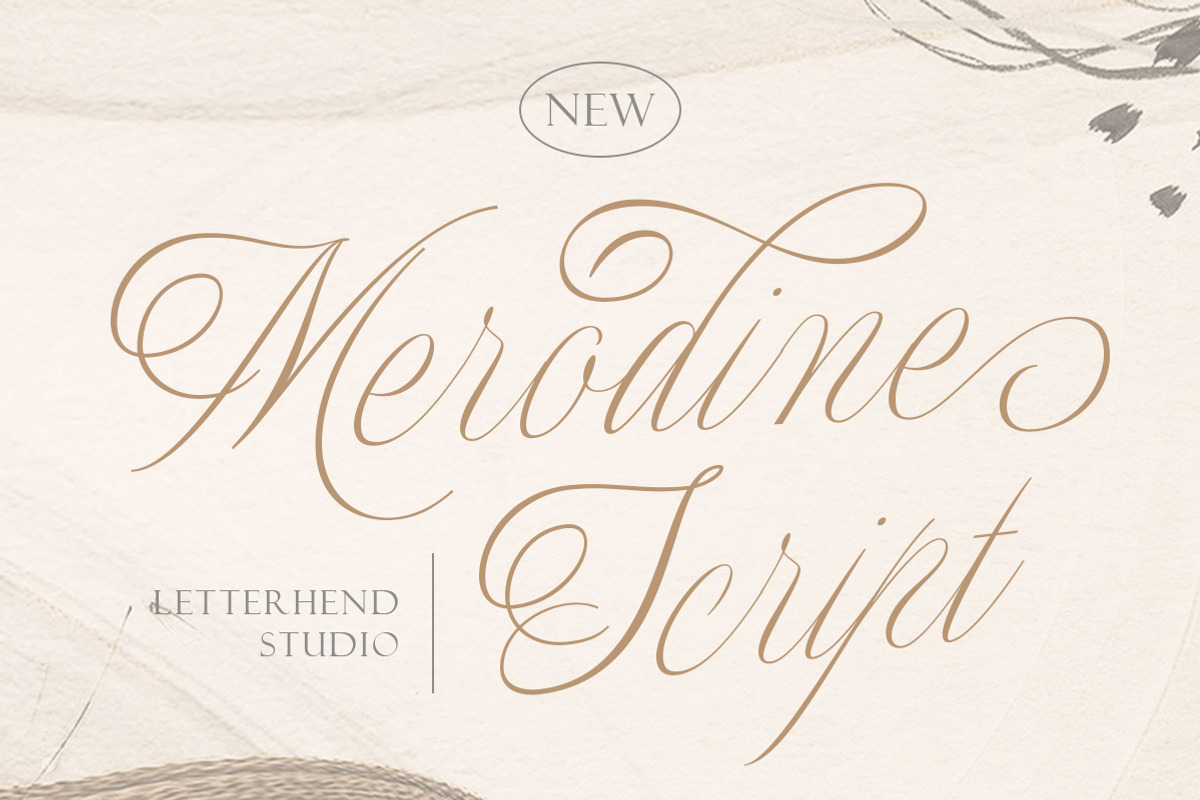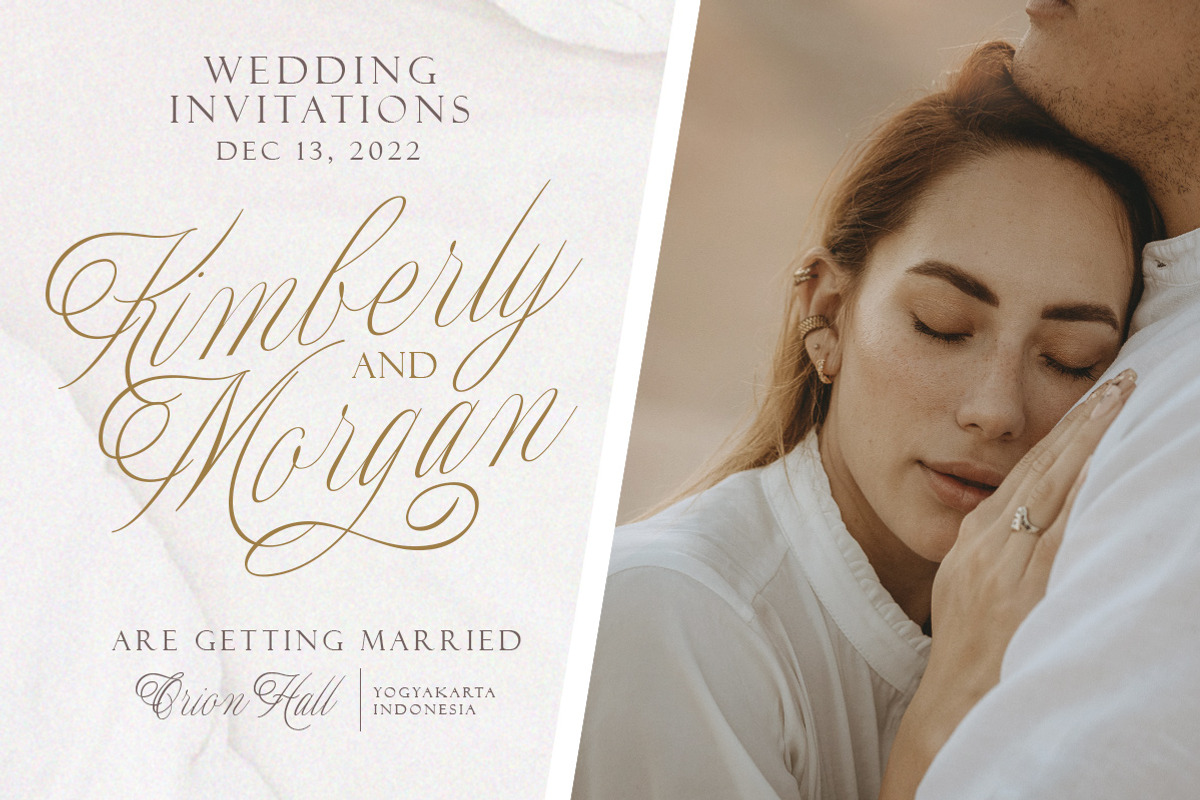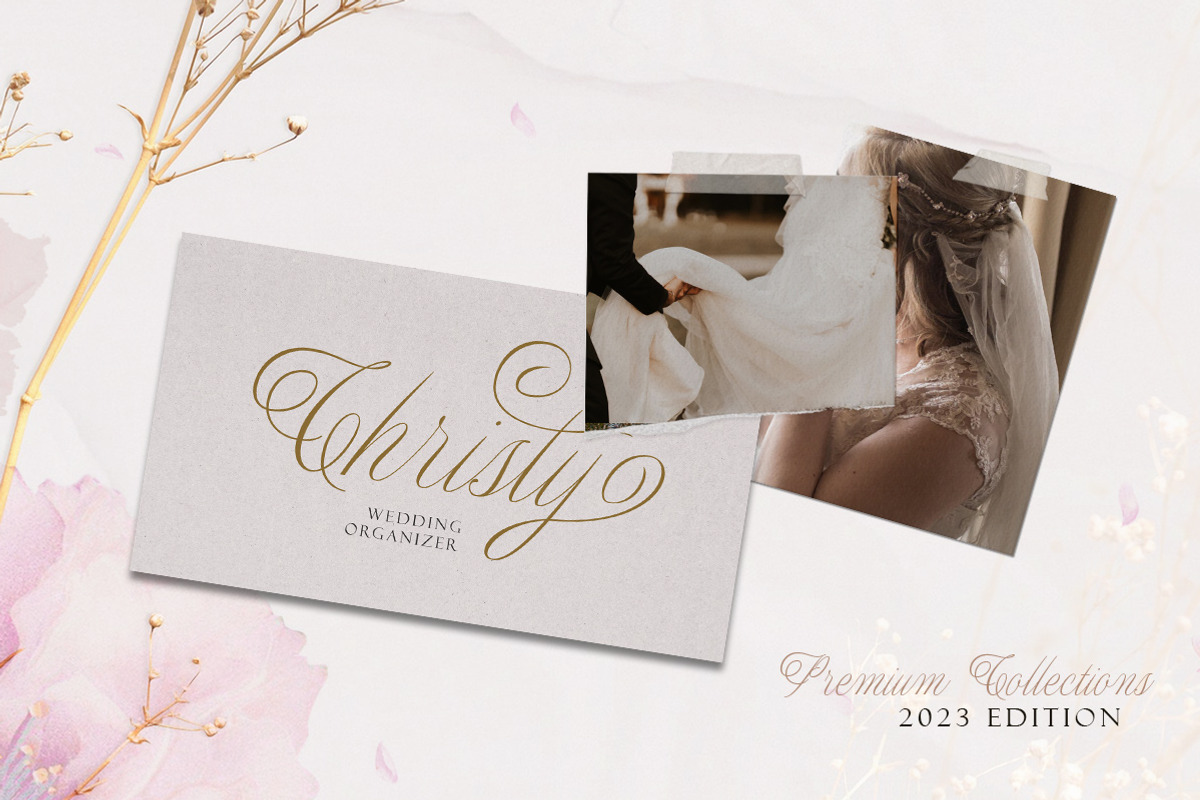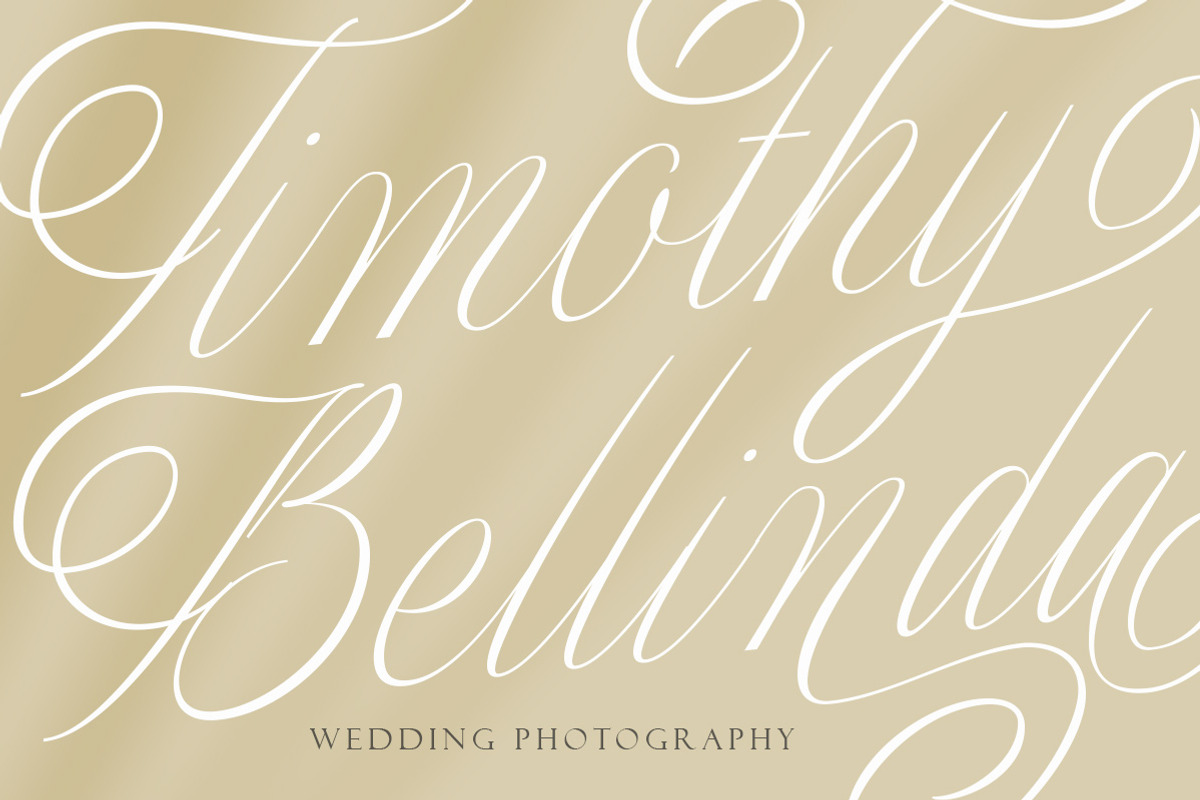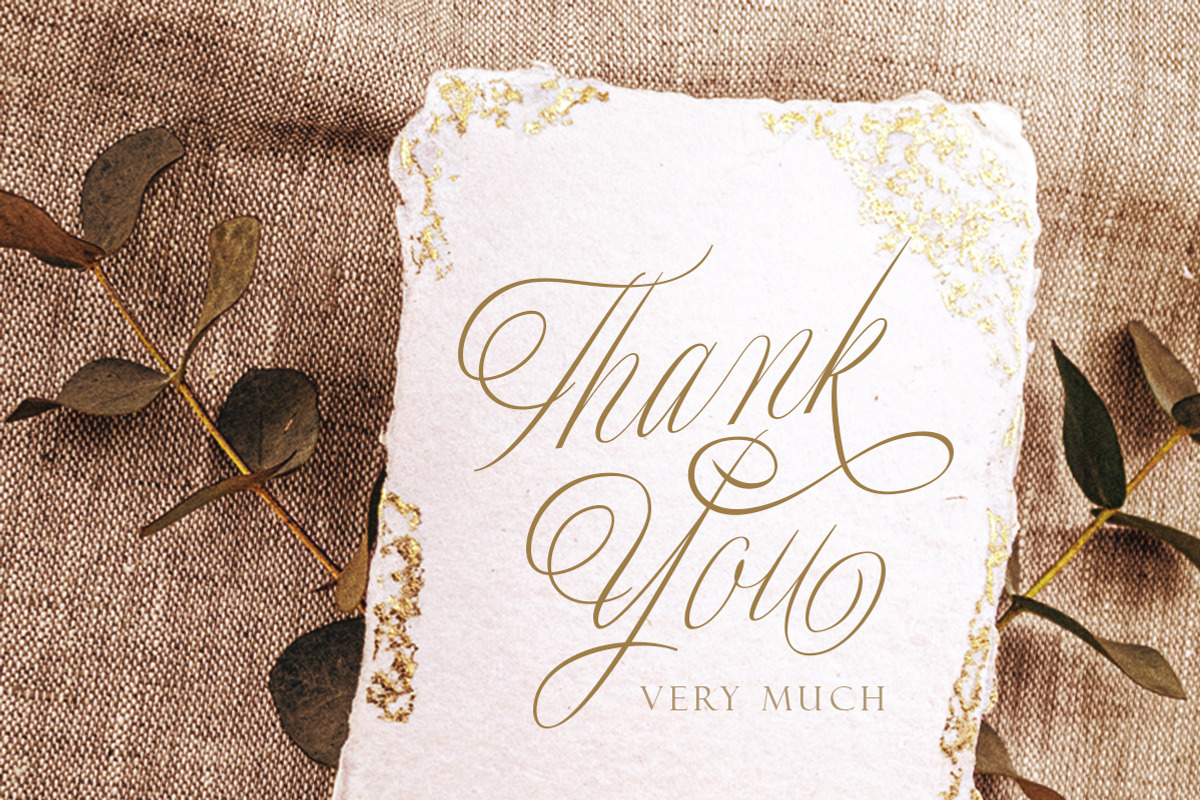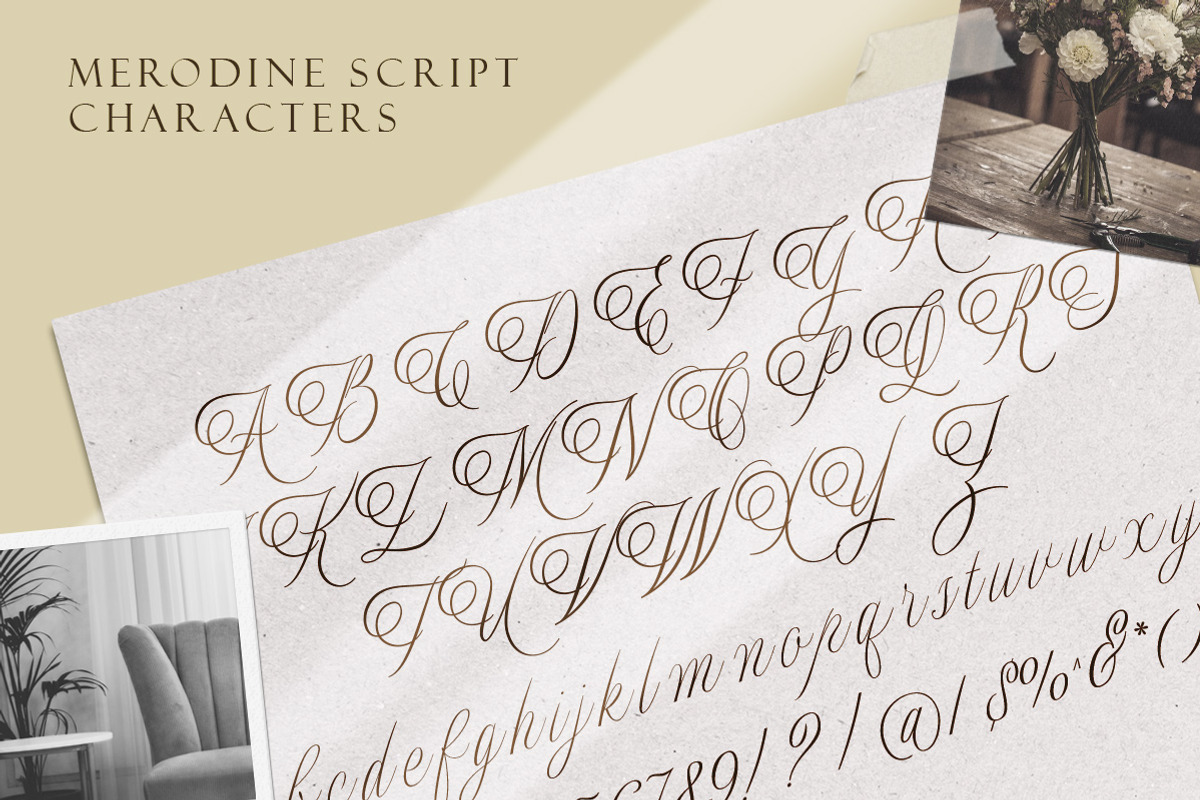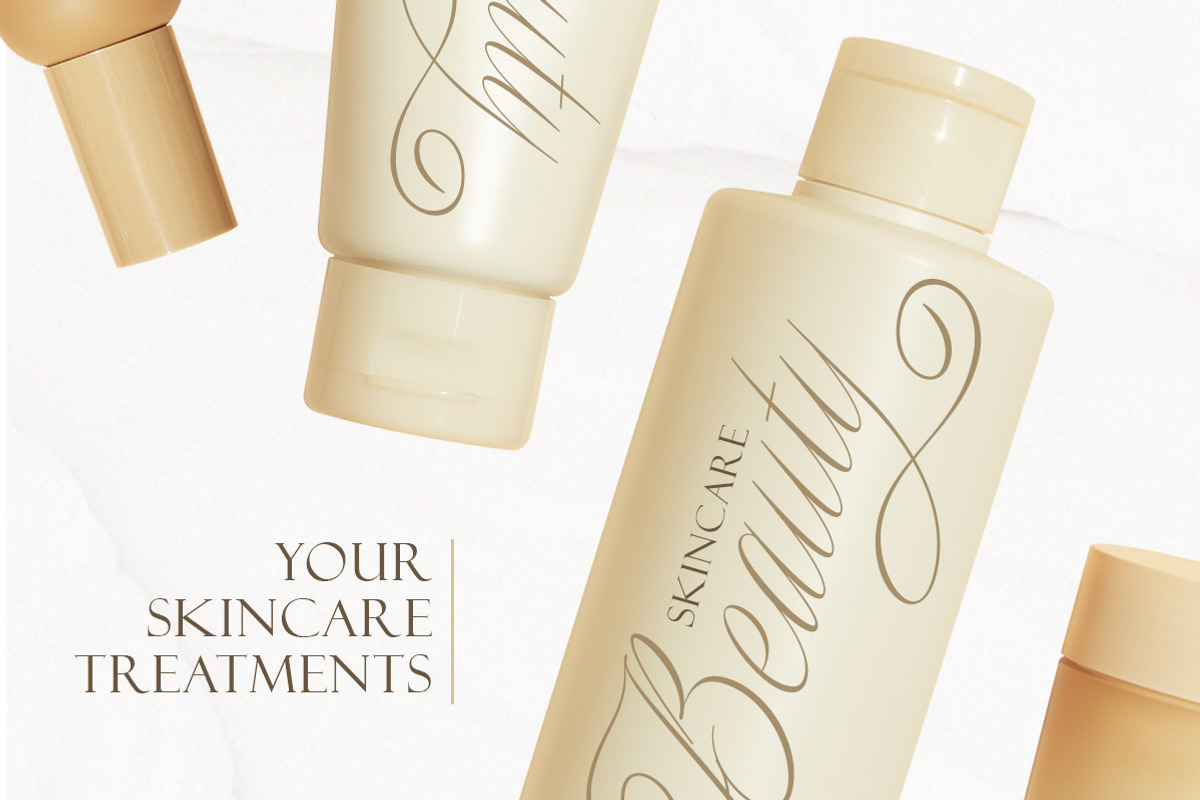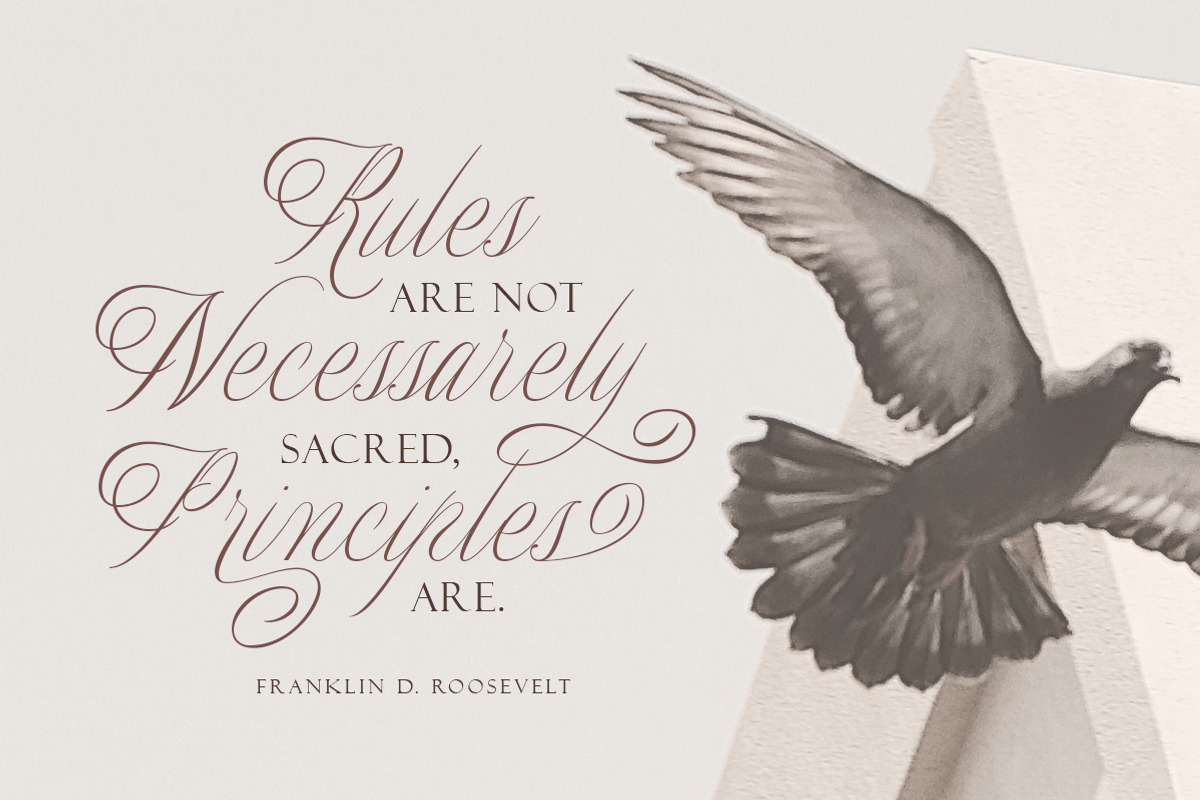
Merodine Script -
Introducing, Merodine Script. A Beautiful and classy script that has many swashes that allows you to create beautiful lettering instantly. it has many stylistic set alternates that you can choose from.
This font perfectly made to be applied especially in logo, and the other various formal forms such as invitations, labels, logos, magazines, books, greeting / wedding cards, packaging, fashion, make up, stationery, novels, labels or any type of advertising purpose.
- alternates
- swashes